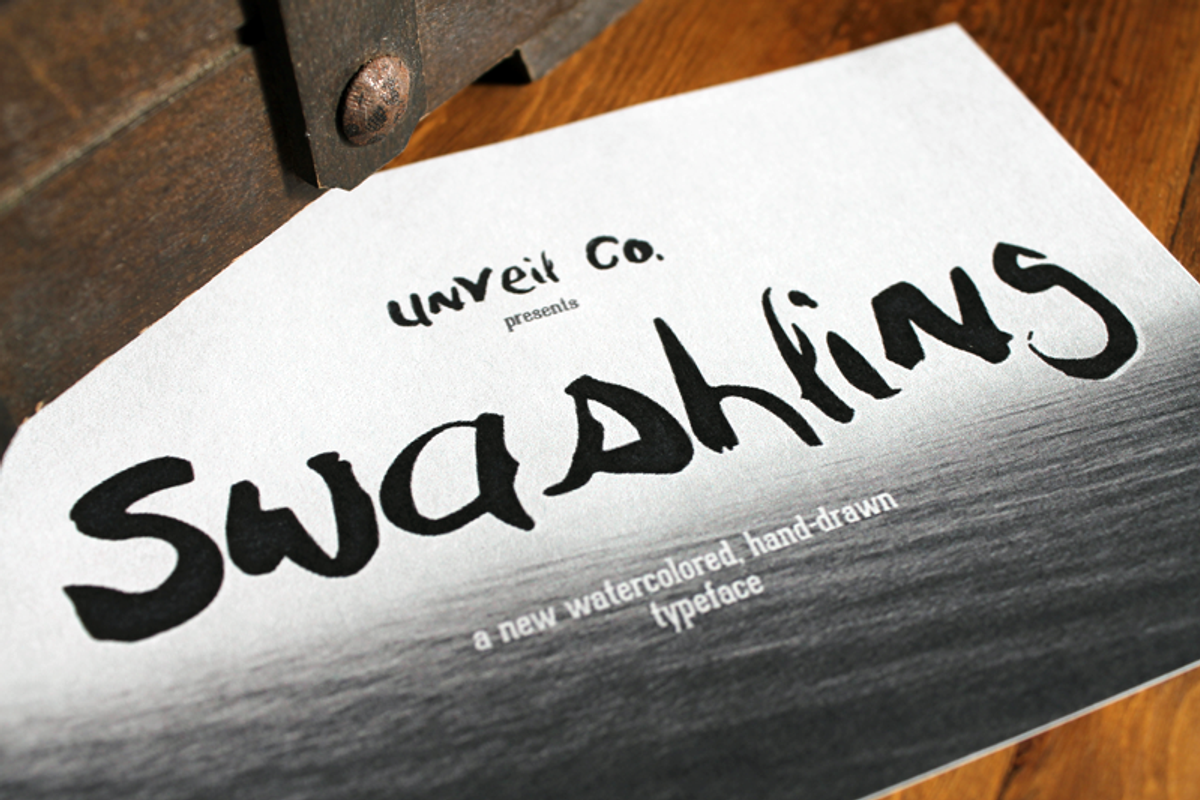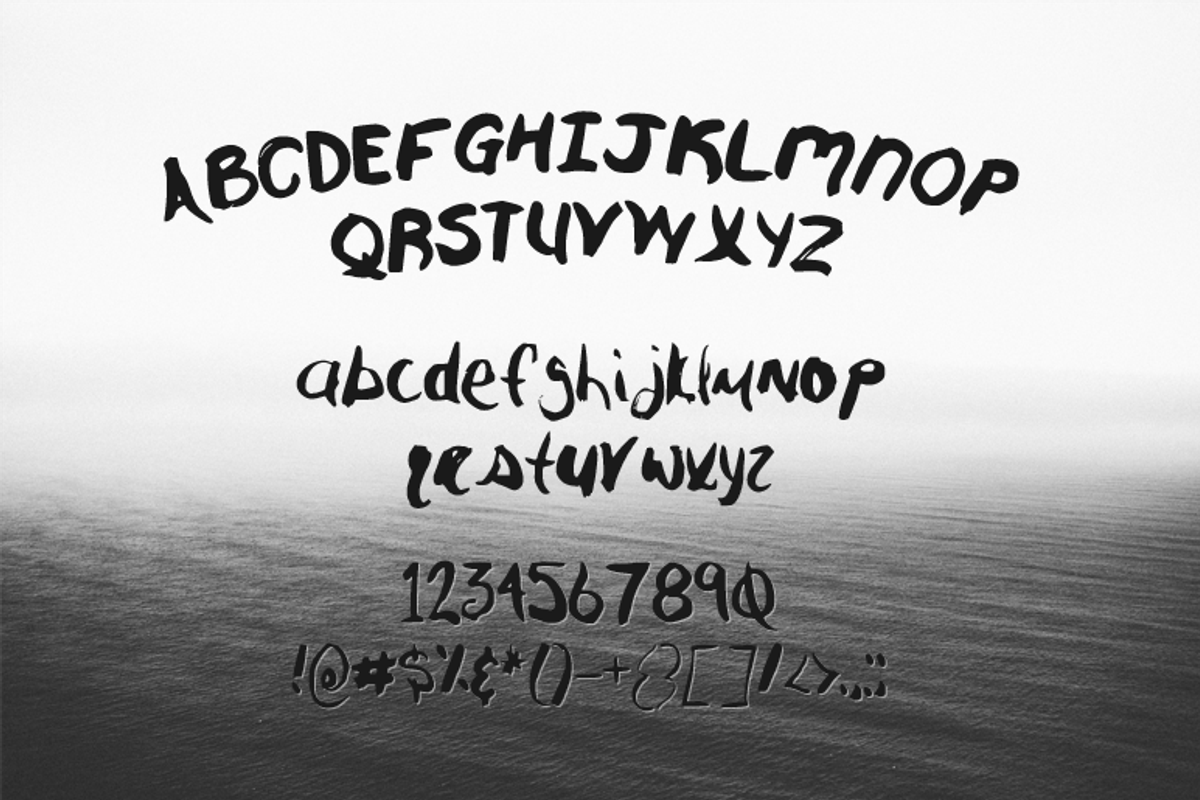
Swashling Typeface
Swashling Typeface by UnVeil Co. is a font selected for branding, posters, packaging, typography.
Why Swashling Typeface is worth a look
Swashling Typeface by UnVeil Co. fits naturally into Branding, posters, packaging, typography.